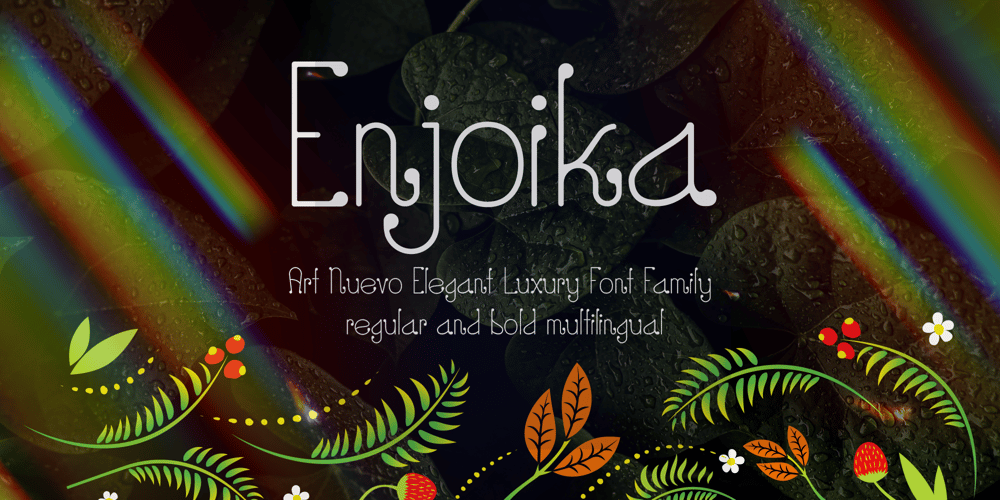
Enjoika Font Family was designed by Igal Faitman, Polina Faitman and published by Fontiko. Enjoika contains 2 styles and family package options. Enjoika serif font familyEnjoika is an elegant and neat font inspired by the Petrykivka painting (traditional Ukrainian decorative painting style) distinctive features of this folk art style are its flower patterns and Art Nuevo style by Alphonse Mucha with the floral and nature thematic and the swirls. This font looks luxury, stylish, elegant and clean and . This font is great for logo branding & invitations, photography, quotes, wedding design, business cards, posters, watermark, holiday cards, special events and much more.